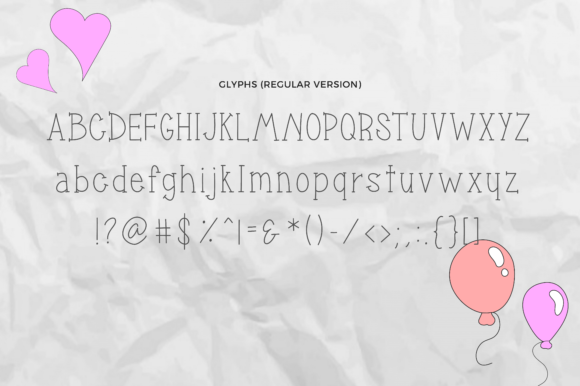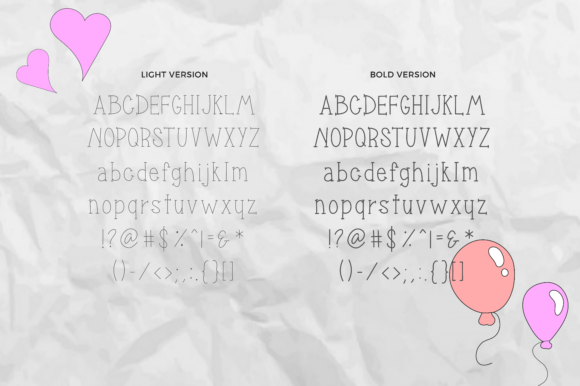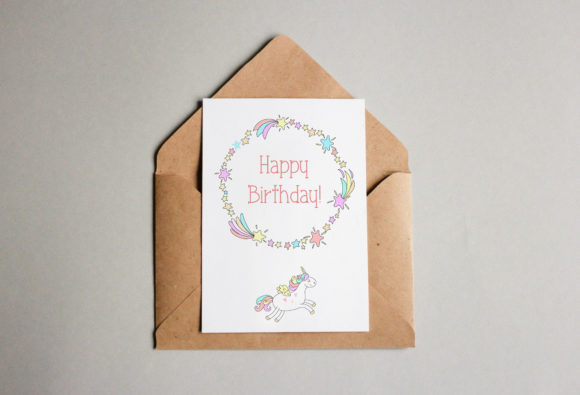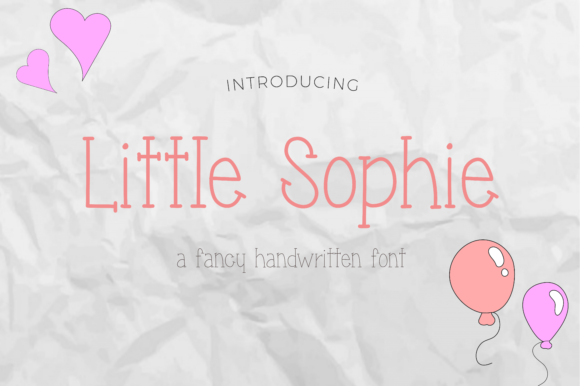
Introduction to Little Sophie Font
The Little Sophie is a funny, cheeky, and bold script font.
It’s perfect for merchandising, cards, clothing, logos and every other design which needs a playful feel .
Little Sophie Font offers exceptional quality and versatility, making it a valuable addition to your design toolkit. Whether you’re creating for personal projects or commercial use, Little Sophie Font delivers professional results.